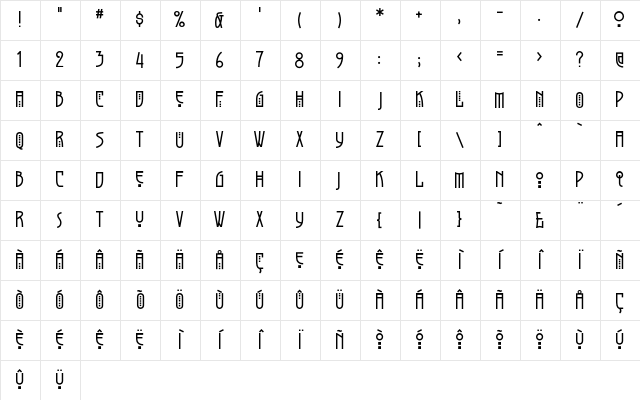
Greyhound Regular
Design Context for Greyhound
Greyhound is a composed and adaptable typeface that performs quietly and consistently across a wide range of design contexts.